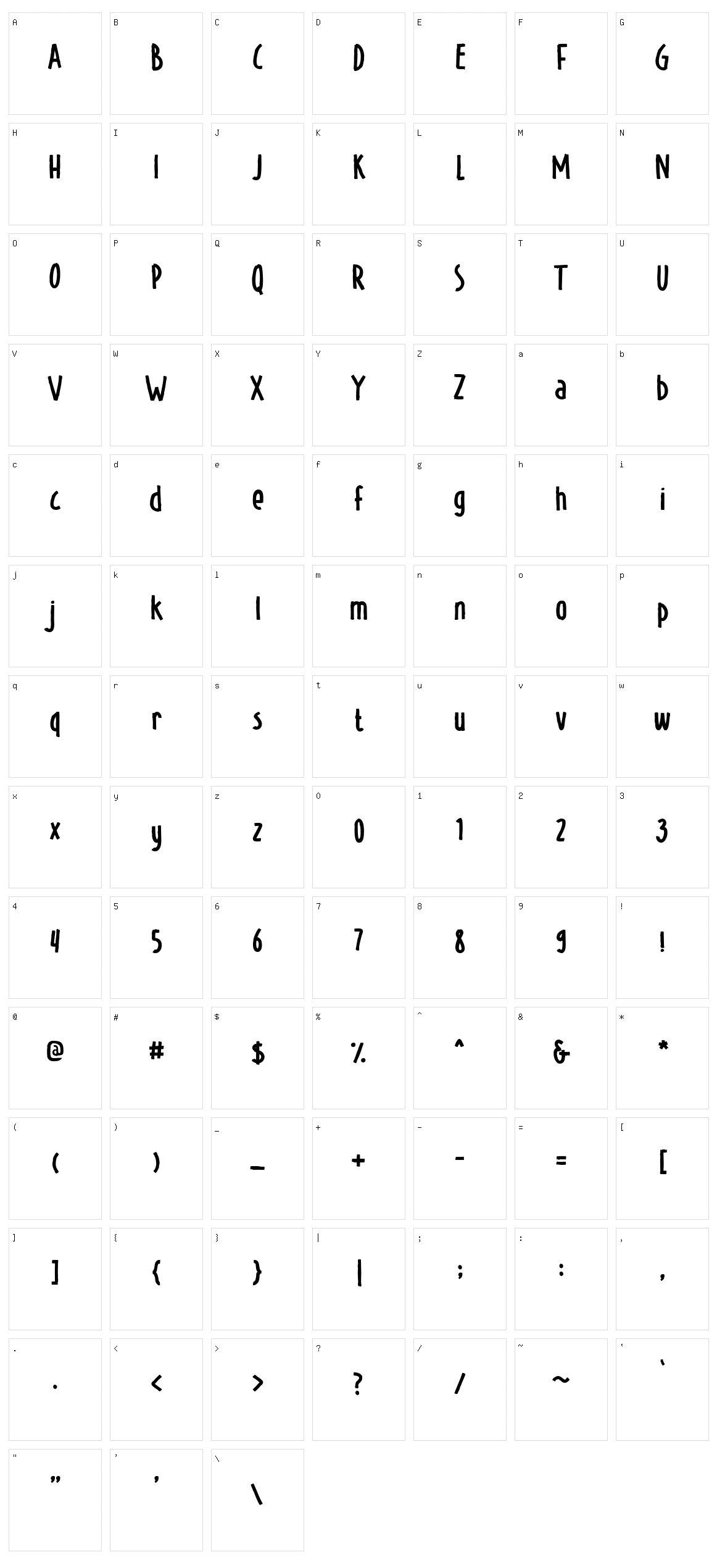
The free font Going Smooth is carefully designed by Alexa, showcasing a thoughtful balance of creativity and usability and falls under the Script font style. When you download the ZIP file, it contains only 53.07 KB of font files, making it lightweight and quick to download. Please review the license details below to understand permitted usage and distribution rights. If license information is not available, we recommend using this font for personal projects only or contacting the author directly for commercial usage permissions.